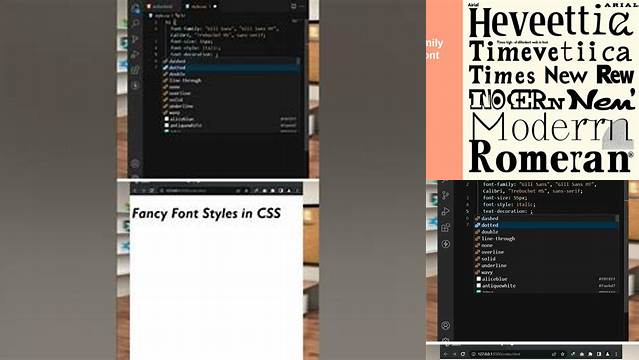
Mastering Fonts In CSS & HTML
Alright guys, let's dive deep into the awesome world of fonts for your web projects! Whether you're building a slick new website or just tinkering with some HTML and CSS, understanding how to use fonts effectively is absolutely crucial. It's not just about picking a pretty typeface; it's about readability, branding, and overall user experience. We're going to break down everything you need to know, from basic font families to more advanced techniques, ensuring your text looks fantastic on any device. So, buckle up, because we're about to unlock the secrets to gorgeous typography on the web!
Exploring Essential Font Families in CSS
When you're first getting started with fonts in CSS and HTML, the easiest way to style your text is by using the built-in font families. These are essentially pre-defined groups of typefaces that browsers recognize and can render. Think of them as your go-to options when you want something simple and reliable. The most common ones you'll encounter are serif, sans-serif, monospace, cursive, and fantasy. The serif family, like Times New Roman, has those little decorative strokes at the ends of letters, which often gives a traditional and classic feel. They're great for long blocks of text because the serifs can help guide the reader's eye. On the flip side, sans-serif fonts, such as Arial or Helvetica, lack these strokes. They tend to look cleaner and more modern, making them super popular for web content, especially headings and shorter paragraphs. For a more technical or code-like appearance, monospace fonts are your best bet. Here, every character takes up the same horizontal space, which is why you often see them used in code editors or terminal interfaces. Then you have cursive fonts, which mimic handwriting. Use these sparingly, guys, as they can be hard to read in large amounts. Finally, fantasy fonts are the wild cards – think decorative and unique styles, best reserved for very specific design elements like big, bold titles. When you specify a font family in CSS, it's good practice to provide a comma-separated list, ending with a generic family. This way, if the first font isn't available on the user's system, the browser can fall back to the next one in the list, ensuring your text always displays something. For example, font-family: "Helvetica Neue", Helvetica, Arial, sans-serif; tells the browser to try "Helvetica Neue" first, then Helvetica, then Arial, and if none of those work, just use any available sans-serif font. This fallback system is a lifesaver for maintaining design consistency across different user environments. Understanding these basic font families is your first step towards mastering typography on the web, setting a solid foundation for more advanced font selections and customizations later on.
Leveraging Generic Font Families in CSS
Generic font families are your safety net in the world of CSS typography, guys. They are essential for ensuring that your text remains readable and aesthetically consistent, even when specific font files aren't available on a user's computer or can't be loaded from a server. Think of them as the ultimate fallback options. The five main generic font families are serif, sans-serif, monospace, cursive, and fantasy. Using these ensures that your website doesn't end up with a completely broken or unappealing font display. For instance, if you specify a particular font like 'MyCustomFont', but the user's browser doesn't have it installed and the web font fails to load, the browser needs a backup. This is where the generic family comes into play. If you've declared font-family: "MyCustomFont", serif;, the browser will first attempt to render 'MyCustomFont'. If that fails, it will then look for any available font categorized as serif. This fallback mechanism is incredibly important for web design because it guarantees a baseline level of typographic quality. The serif family, characterized by small decorative strokes (serifs) on the edges of characters, often evokes a traditional, elegant, or formal feel, commonly seen in printed books. Examples include Garamond or Georgia. The sans-serif family, as the name suggests (sans means 'without' in French), lacks these serifs, giving it a clean, modern, and highly readable appearance, making it a staple for web content. Examples include Arial, Helvetica, or Verdana. Monospace fonts assign equal horizontal space to each character, giving them a fixed-width appearance, ideal for code snippets or tabular data where alignment is critical. Courier New is a classic example. Cursive fonts mimic handwriting, offering a more personal or artistic touch, but they should be used cautiously due to potential readability issues in longer texts. Brush Script MT is an example. Lastly, fantasy fonts are highly decorative and often stylized, suitable for attention-grabbing headlines or specific thematic elements, but they can be difficult to read and should be used very sparingly. When you define your font-family property in CSS, always include a generic family at the end of your list. This ensures that no matter what, your text will be rendered using a font that belongs to one of these broad categories, providing a predictable and acceptable visual outcome. Guys, mastering the use of generic font families is not about choosing the most visually exciting option; it's about building a robust and reliable typographic system for your website.
Understanding Font Weights in CSS
Font weights are super important for adding visual hierarchy and emphasis to your text in web design, guys. They determine how bold or light a font appears. In CSS, you can control this using the font-weight property. The most common values you'll use are normal (which is usually equivalent to a weight of 400) and bold (typically 700). However, many fonts come in a range of weights, from extra light (100) to black or heavy (900). You can specify these numerical values directly, like font-weight: 100;, font-weight: 300;, font-weight: 400;, font-weight: 500;, font-weight: 700;, or font-weight: 900;. Using these numbers gives you precise control over the boldness of your text. For instance, you might want your main headings to be bold (700), subheadings to be slightly lighter, perhaps 500 or 600, and body text to be normal (400). This differentiation helps users quickly scan your content and understand the structure. Beyond the numerical values, CSS also accepts keywords like lighter and bolder. These keywords work relative to the parent element's font weight. So, if a parent element has a font weight of normal (400), applying lighter to a child element would make it lighter than 400 (if available), and bolder would make it heavier. However, it's generally more reliable and predictable to use the numerical values or the normal and bold keywords directly. Remember that not all fonts support every single weight. A font might only come in normal and bold, or it might have a full spectrum from thin to black. The browser will try its best to find the closest available weight if you specify one that doesn't exist, but relying on the weights that are actually included with the font file or available via your web font service is the best practice. Experimenting with different font weights is a fantastic way to add depth and visual interest to your designs without resorting to different font families, making your layouts more dynamic and engaging for your audience. It's all about making your content pop and guiding the reader's eye effectively.
Choosing Font Sizes with CSS font-size
Setting the right font size is absolutely critical for readability and the overall aesthetic of your website, guys. Too small, and people struggle to read; too large, and your layout can look cramped or unprofessional. CSS provides the font-size property to handle this, and you've got several units to play with. Pixels (px) are a straightforward, absolute unit. font-size: 16px; means exactly 16 pixels. They're predictable but don't scale well across different devices or user preferences for text size. Relative units are often preferred for flexibility. EMs (em) are relative to the font size of the parent element. If a parent has a font size of 20px, then 1em inside it would also be 20px. However, 1.2em would be 24px. This can be powerful for creating scalable components, but nested elements can lead to compounding sizes, which sometimes gets tricky to manage. REMs (rem) are usually the best of both worlds for many scenarios. They are relative to the font size of the root element (the <html> tag). So, if you set font-size: 16px; on your html element, then 1rem anywhere in your document will be 16px. This provides a consistent scaling mechanism throughout your site without the compounding issues of EMs. Viewport units (vw, vh) are also relative, but to the viewport size. 1vw is 1% of the viewport width, and 1vh is 1% of the viewport height. These are great for responsive typography that adjusts directly with the screen size, but you need to be careful they don't become too small on tiny screens or too large on huge ones – often used in conjunction with media queries. Percentage units (%) are similar to EMs, being relative to the parent element's font size. Finally, there are keywords like small, medium, large, x-large, etc. These are less precise and depend on browser defaults. For modern web development, a common and effective strategy is to set a base font-size on the html element (e.g., font-size: 100%; which usually defaults to 16px in most browsers, or font-size: 62.5%; to make 1rem equal to 10px for easier math) and then use rem units for most of your text elements. This allows users to adjust their browser's default text size, and your site will scale accordingly, ensuring great accessibility and a much better user experience, guys. It's all about finding that sweet spot for legibility and design harmony.
Styling Text with Font Properties in CSS
Beyond just selecting font families and sizes, CSS offers a rich set of properties to style your text, making it truly your own. These properties allow you to fine-tune the appearance of type, impacting everything from its baseline to its decoration. Let's talk about font-style. This property controls the slant of the text. The most common values are normal (the default), italic (true italic versions of the font if available, otherwise simulated italics), and oblique (a mathematically slanted version of the normal font, often looks similar to italic but isn't always as aesthetically pleasing). You'll frequently use italic for emphasis or code snippets. Then there's text-decoration. This is used to add lines to text, such as underlines, overlines, or line-throughs. The default for links is an underline (text-decoration: underline;), but you often remove it for cleaner designs (text-decoration: none;). You can also add other decorative lines like overline, line-through, or blink (though blinking text is generally frowned upon for usability reasons). You can even specify the color and style of the decoration using text-decoration-color and text-decoration-style. text-transform is another powerful property that allows you to change the case of your text without altering the HTML source. You can set it to uppercase to make all letters capital, lowercase to make them all small, or capitalize to make only the first letter of each word uppercase. This is super handy for creating consistent headings or button labels. letter-spacing controls the space between characters, allowing you to expand or condense them. Too much negative letter-spacing can make text illegible, while too much positive spacing can make it feel airy. word-spacing works similarly but adjusts the space between words. Both are useful for fine-tuning the visual rhythm of your text. Finally, properties like line-height (the space between lines of text) and text-align (how text is aligned within its container – left, right, center, or justify) are fundamental to creating readable and visually appealing paragraphs. Mastering these font styling properties is key to elevating your web designs from basic to polished, ensuring your content not only looks good but is also a pleasure to read, guys.
Controlling Text Decoration with CSS
Text decoration in CSS is all about adding visual flair or essential indicators to your text, guys. The text-decoration property is your primary tool here, and while it's often used to remove the default underline from links (text-decoration: none;), it can do so much more! You can add underlines (underline), overlines (overline), and strikethrough effects (line-through). These are useful for indicating deleted text, highlighting important phrases, or even creating unique design elements. But it gets even cooler! You can customize the appearance of these decorative lines using related properties. text-decoration-line specifies which line(s) to draw (underline, overline, line-through, or a combination). Then, text-decoration-style lets you control the look of the line: solid, double, dotted, dashed, or wavy. Imagine using a wavy underline to indicate a misspelling or a double underline for a special emphasis! text-decoration-color allows you to set the color of the line, separate from the text color. This opens up a whole new realm of design possibilities. For example, you could have black text with a red wavy underline. You can even combine multiple decorations. For instance, text-decoration: underline overline dotted red; would apply an underlined and overlined effect, styled as dots, in red. While text-decoration is the shorthand for line, style, and color, it's good to know the individual properties for more granular control. Just remember, guys, that overusing text decorations can make your content look cluttered and unprofessional. Use them strategically to enhance readability or draw attention to specific elements, rather than just for decoration's sake.
Enhancing Readability with line-height
Achieving excellent readability on the web often comes down to the seemingly small detail of line-height, guys. This CSS property determines the amount of space between lines of text within a block element. Proper line-height ensures that text is comfortable to read, preventing characters from bumping into each other or leaving excessive gaps that disrupt the flow. When you set line-height, you can use various units. Using a unitless number, like line-height: 1.5;, is generally the most recommended approach for responsive design. This value is a multiplier applied to the element's current font size. So, a line-height of 1.5 on text with a font-size of 16px would result in a line height of 24px (16px * 1.5). The advantage of unitless values is that they scale proportionally if the font size changes, ensuring consistent spacing. You can also use pixels (px), like line-height: 24px;, which sets a fixed height. However, if the font size changes, this fixed line height might become too small or too large, leading to readability issues. EMs (em) and REMs (rem) can also be used, providing relative sizing, but the unitless approach is often preferred for its simplicity and scalability. What's considered a